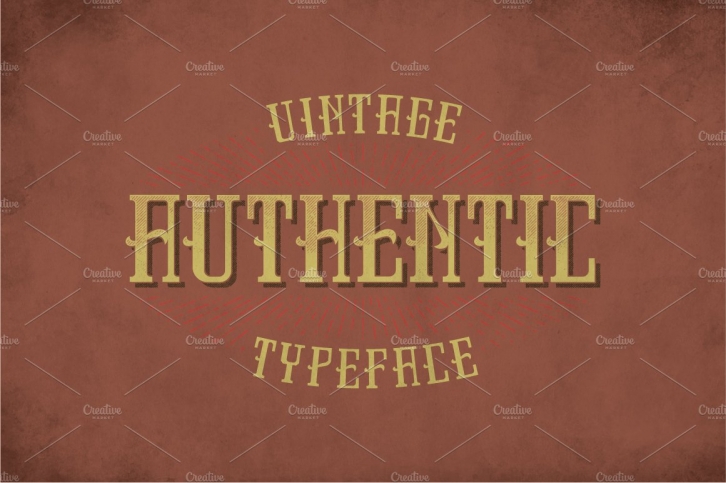
Introducing a vintage look label typeface named "Authentic". It's made in strong and vintage label style. Typeface is good viewed on any labels design.